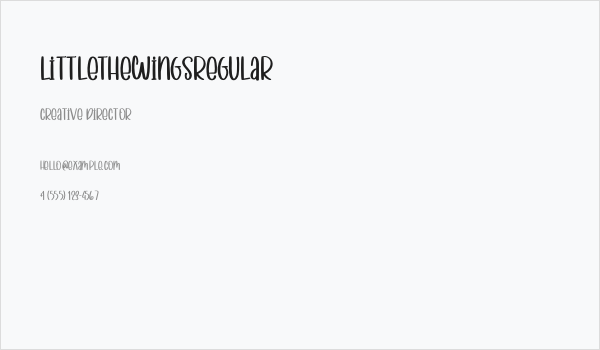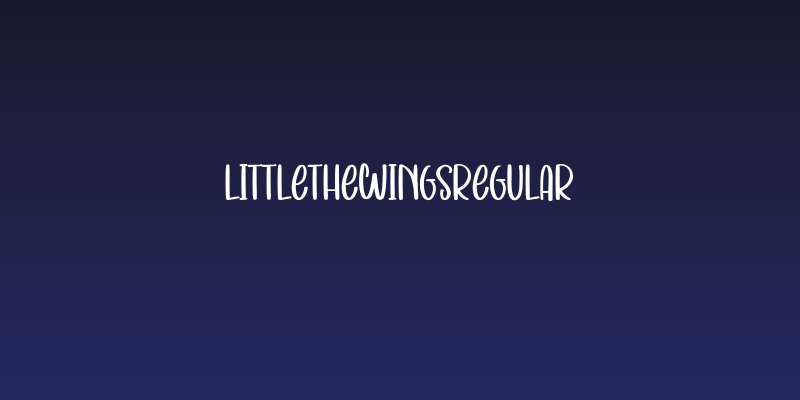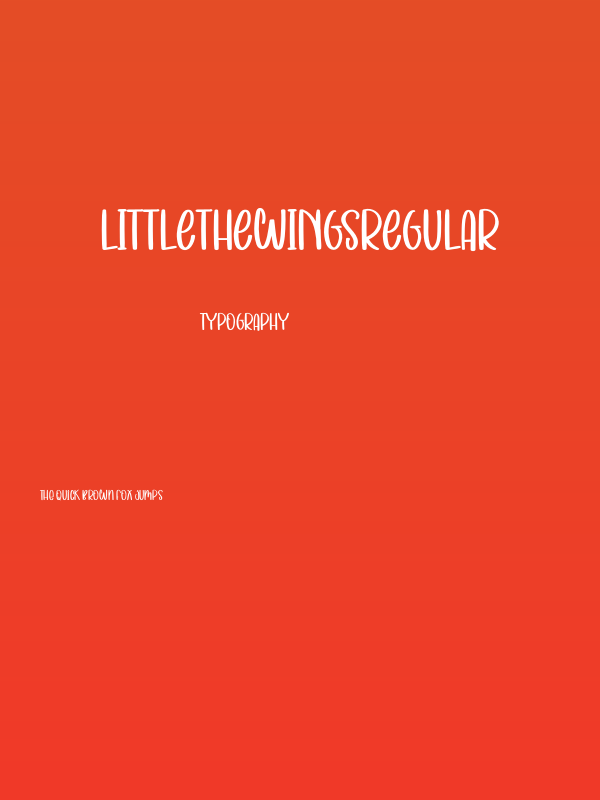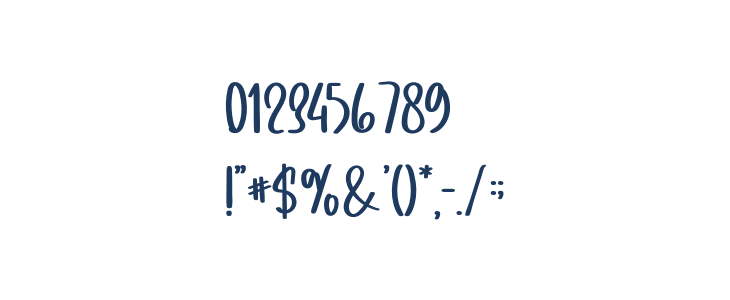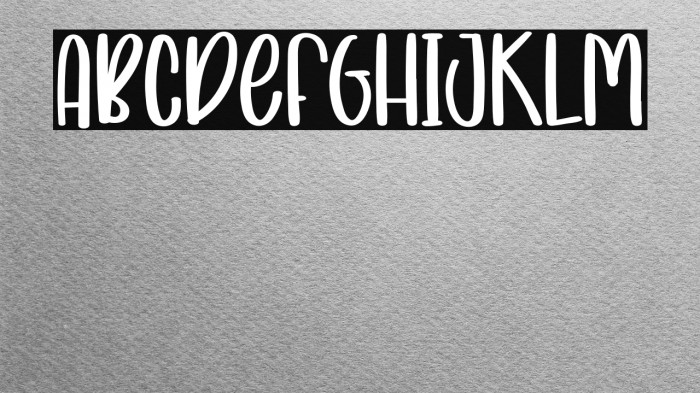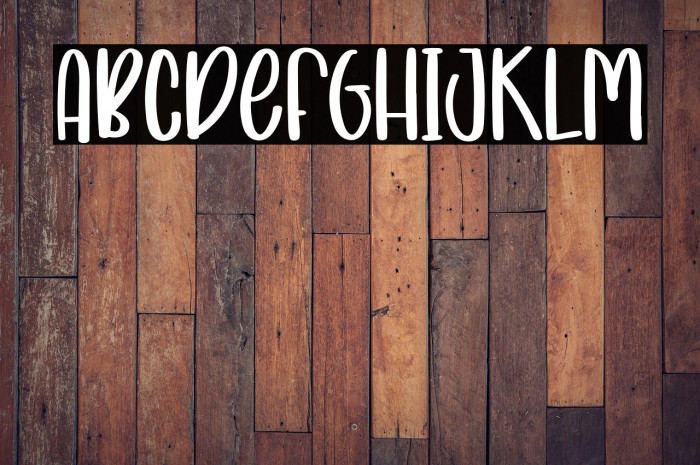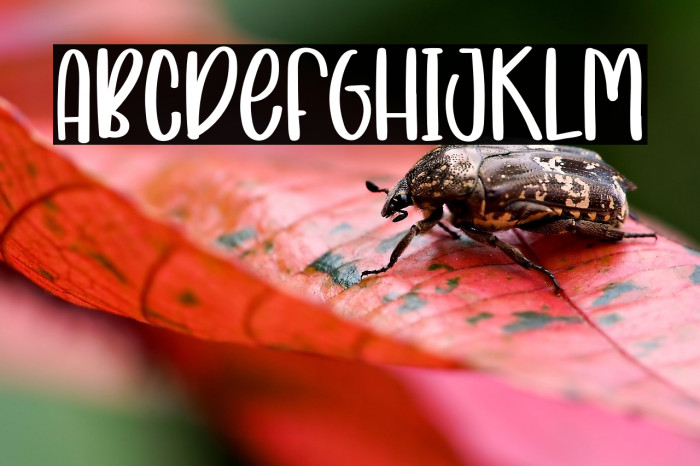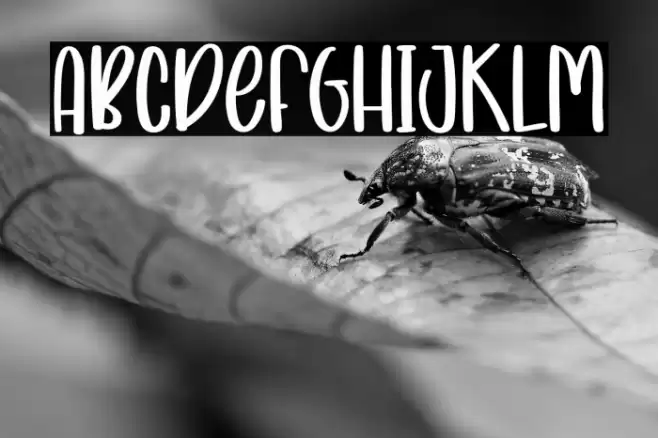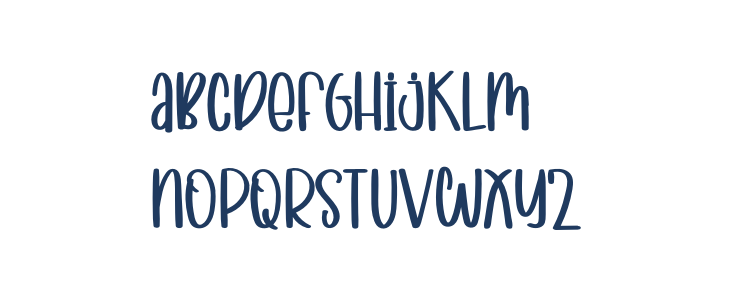
LittleTheWingsRegular Font
LittleTheWingsRegular Description
This font features a playful and whimsical handwritten style, characterized by its smooth, rounded edges and consistent stroke width. The letters are slightly elongated with a casual, flowing appearance, giving it a friendly and approachable feel. The uppercase and lowercase letters maintain a uniform height, contributing to its cohesive look. The numerals and special characters are designed to match the overall aesthetic, ensuring versatility across various applications. This font is ideal for projects that require a personal touch, such as invitations, greeting cards, or branding materials that aim to convey warmth and creativity.
| Overall Style | Playful, Whimsical |
| Use Case | Headlines, Logos, Invitations |
| Proposed Projects | Ideal for invitations, greeting cards, branding materials, and creative projects requiring a personal touch. |